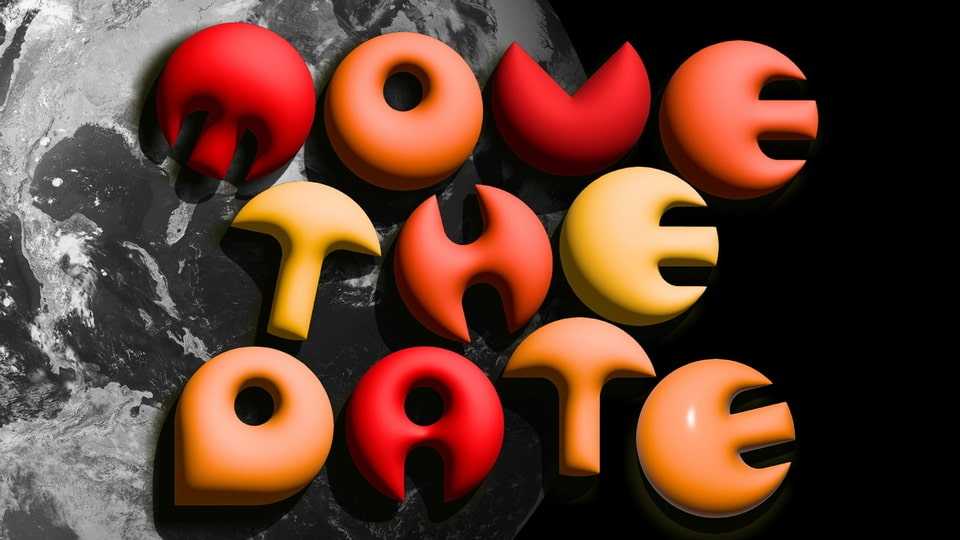
Move Type Font › Fontesk
Download Move Type font, a display typeface that ingeniously employs ovals as the foundational shape for each letter, purposefully hollowed out to symbolize the relentless extraction of Earth’s resources by humanity.
Designer: Andiry Tan